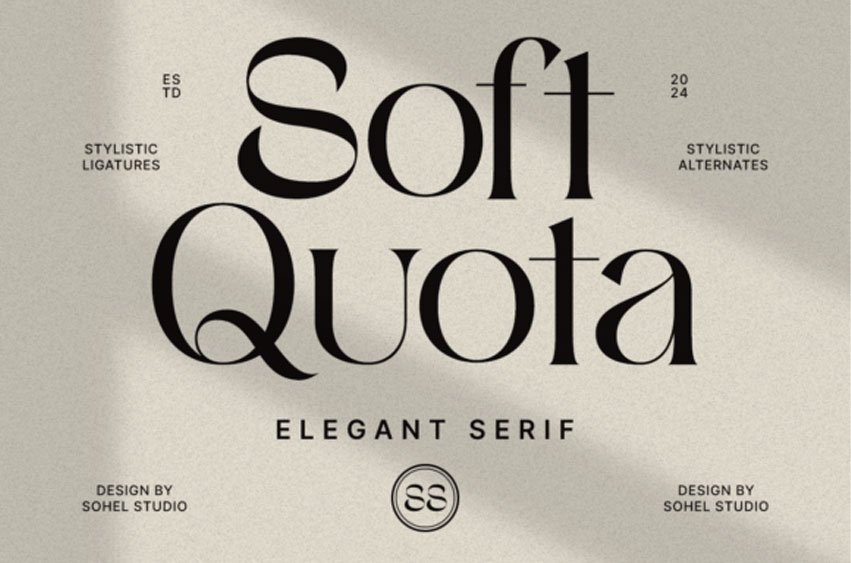
Soft Quota Font is an elegant serif font designed by Sohel Studio to bring both modern and classic touches into one style. The font features bold yet smooth letterforms, with stylistic ligatures and alternates that add a unique flair to every design project.
Soft Quota is perfect for branding, logos, editorials, wedding invitations, luxury packaging, and more. This font supports multiple languages and is ready to elevate your visual design with a professional and exclusive feel.